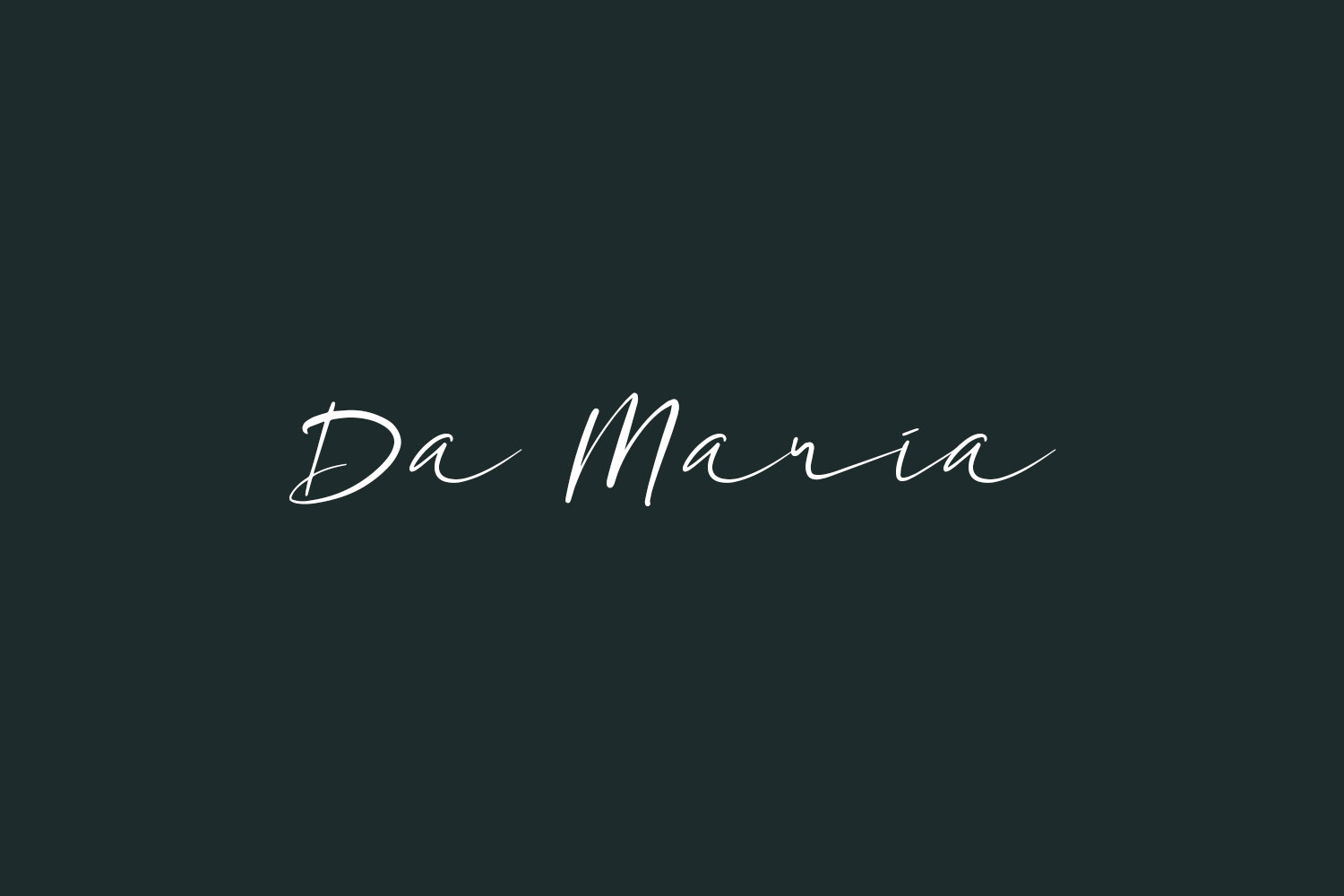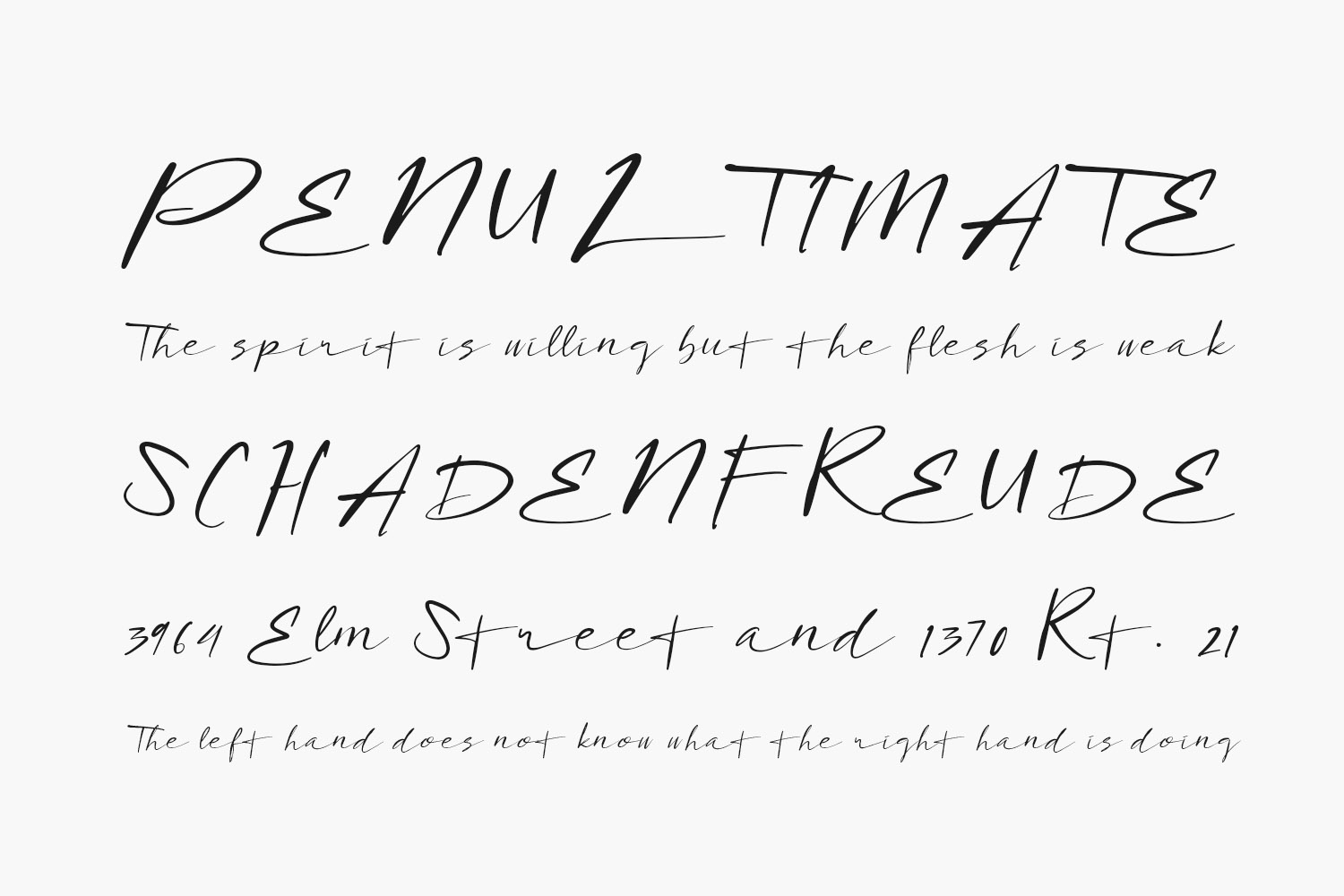
Da Maria Free Font is a playfully romantic and sweet script font that’s great for adding a personal vibe to your next design idea. Get inspired by its unique style. Da Maria Free Font was designed by Scratch Design and is free for personal use only. Please purchase the full version for commercial use.